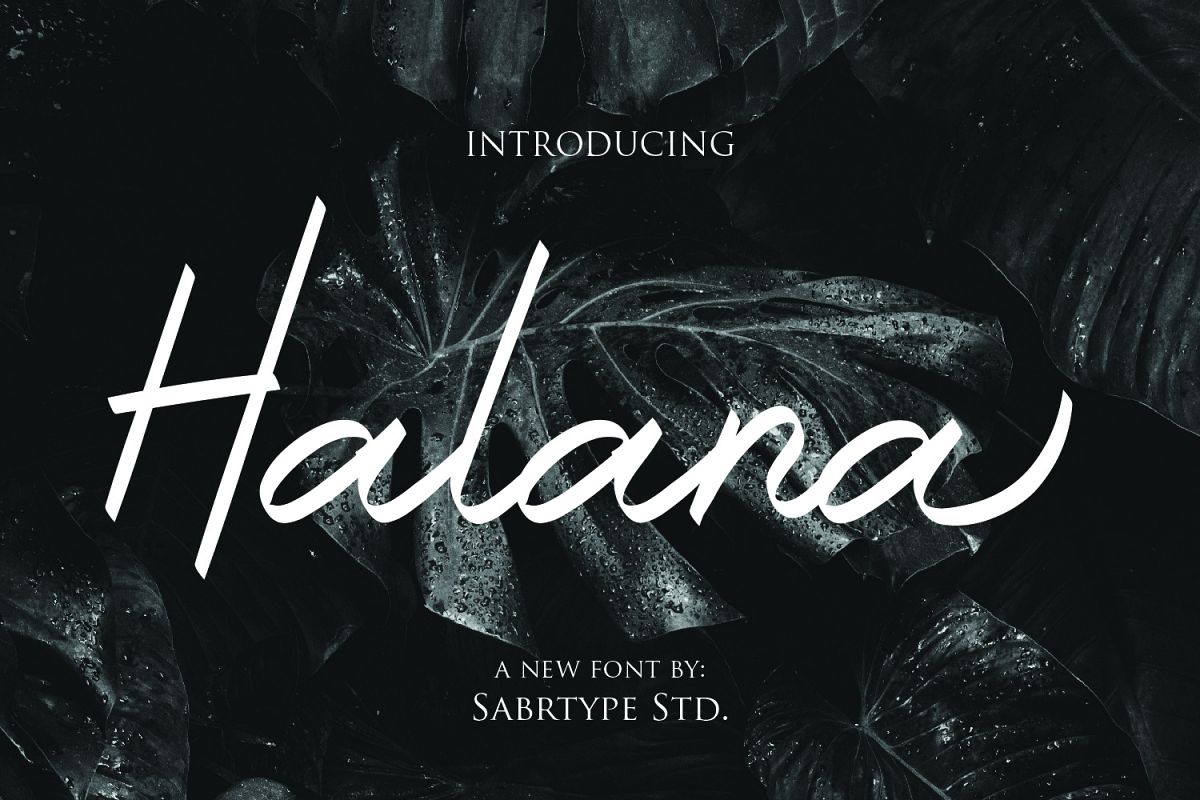
Halana Font
Halana is perfect
for photography, watermark, social media posts, advertisements, logos
& branding, invitation, product designs, label, stationery, wedding
designs, product packaging, special events or anything that need handwriting
taste.
Fonts include multilingual support for:
Afrikaans, Albanian, Catalan, Danish, Dutch, English, French, Hungarian,
Icelandic, Italian, Spanish, Portuguese, German, Swedish, Norweigen, Polish,
Indonesian, Turkish, Zulu